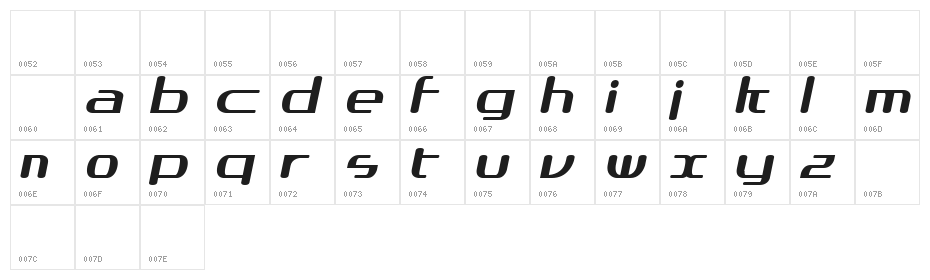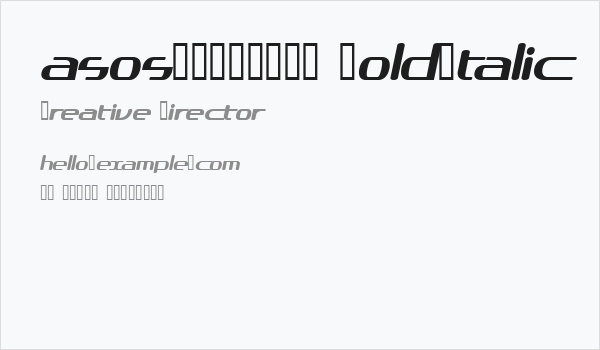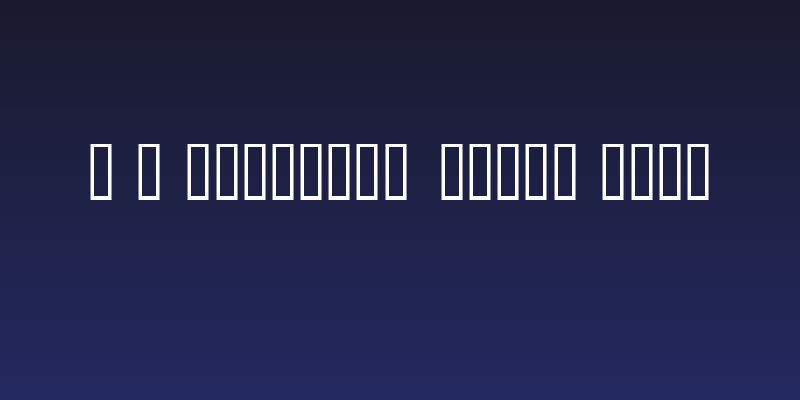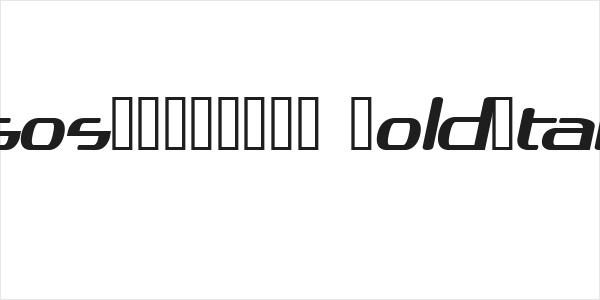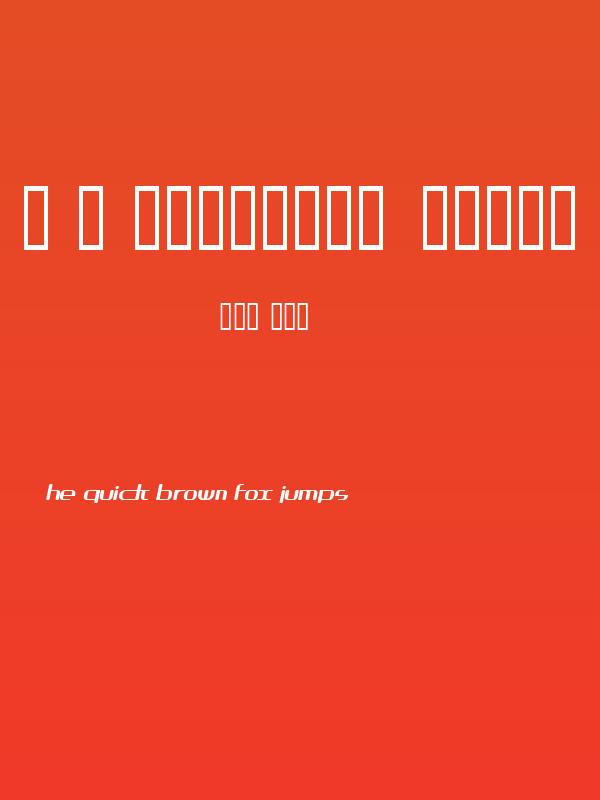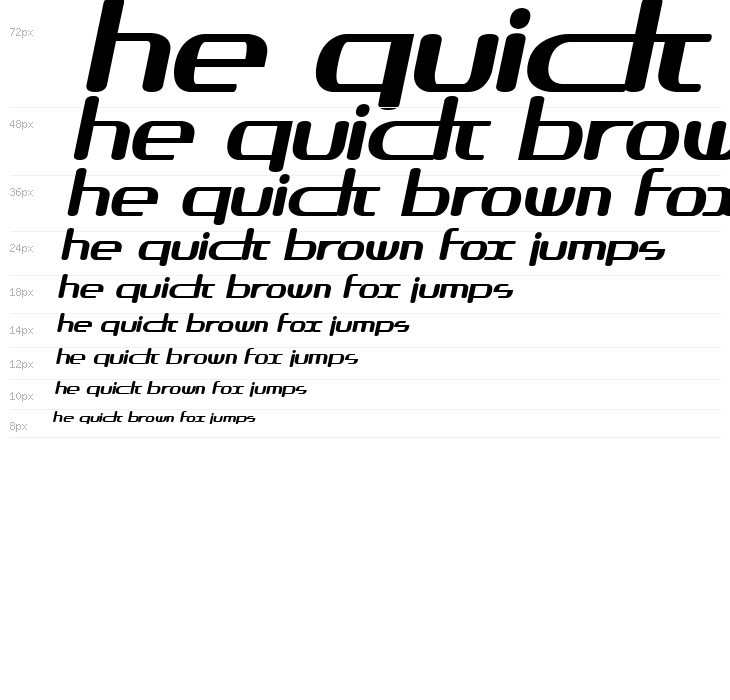
asos19101357 BoldItalic Font
asos19101357 BoldItalic Description
This font exhibits a sleek and modern design with a distinct italicized style. The lowercase letters are characterized by smooth curves and a forward-leaning posture, giving a sense of motion and dynamism. The strokes are consistent in weight, providing a balanced appearance. The font's design is minimalistic yet stylish, making it suitable for contemporary applications. The absence of serifs adds to its clean and streamlined look, while the boldness of the characters ensures readability and impact.
| Proposed Projects | Ideal for branding, advertising, and digital media projects where a modern and dynamic look is desired. |